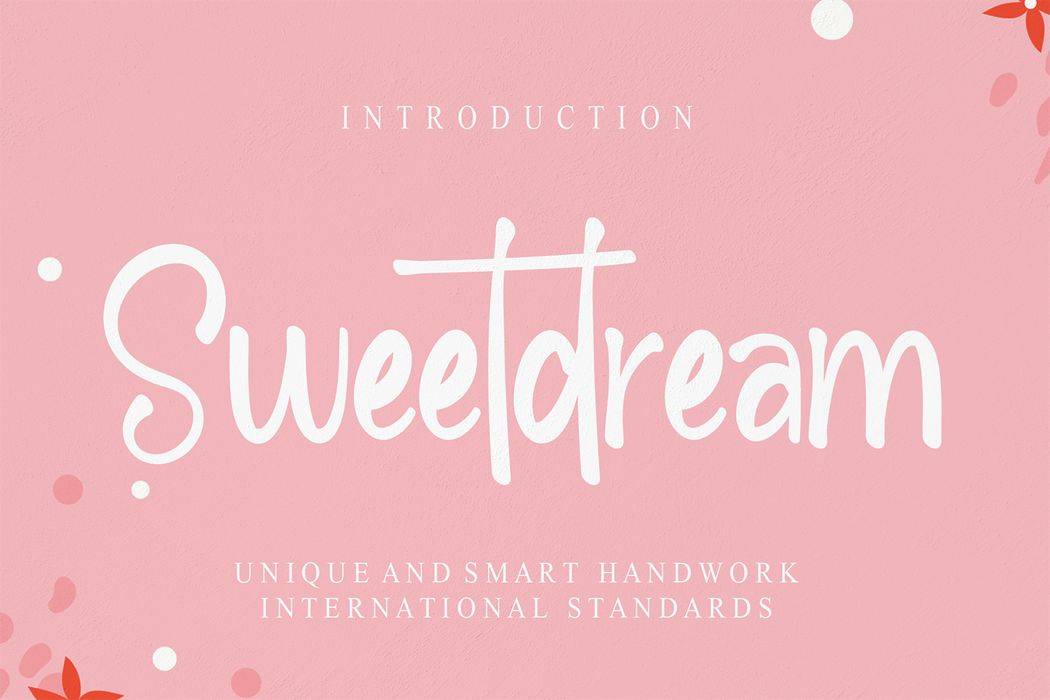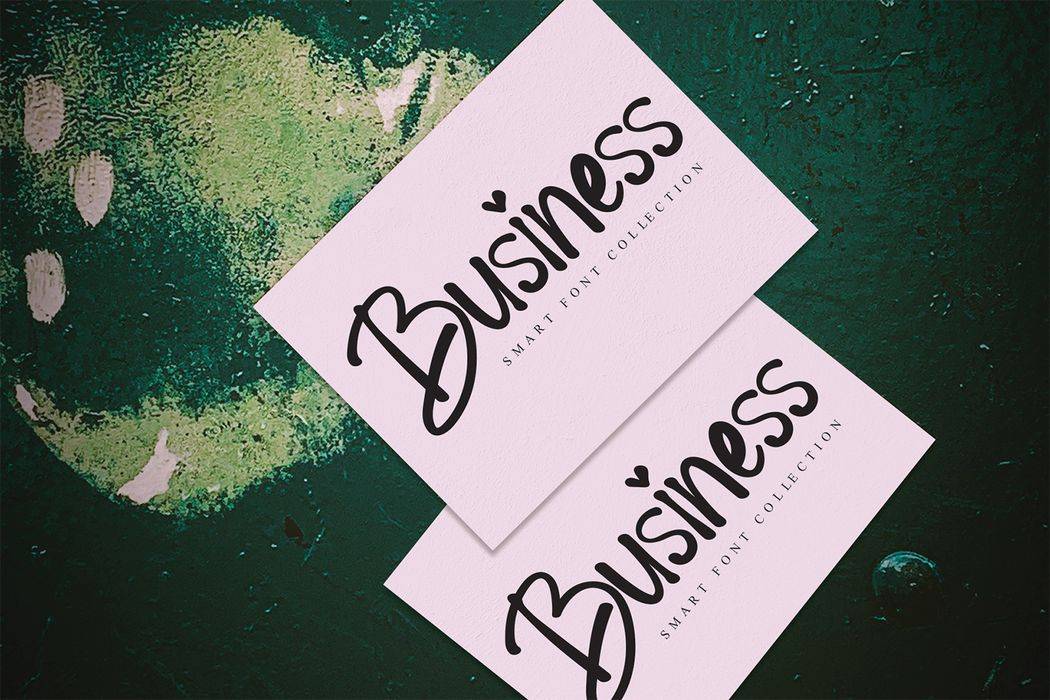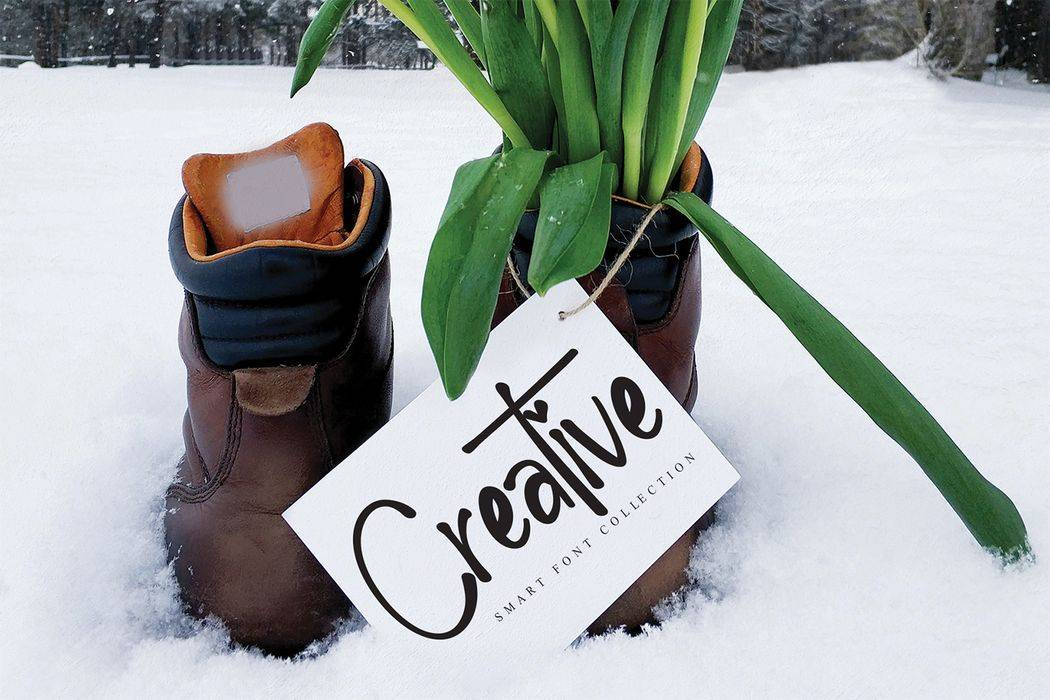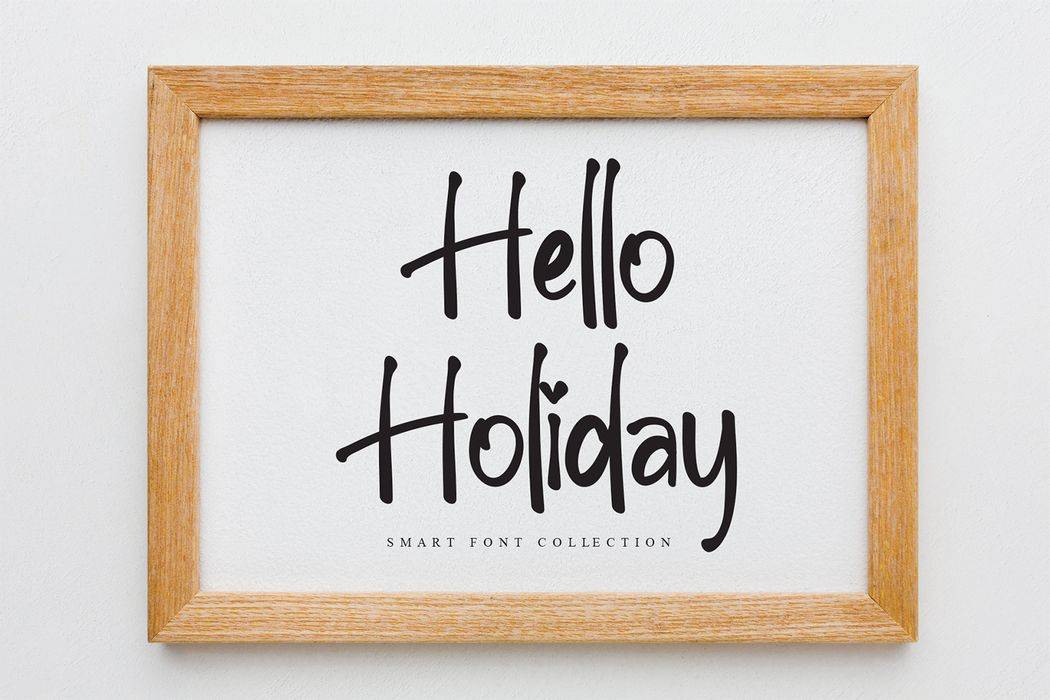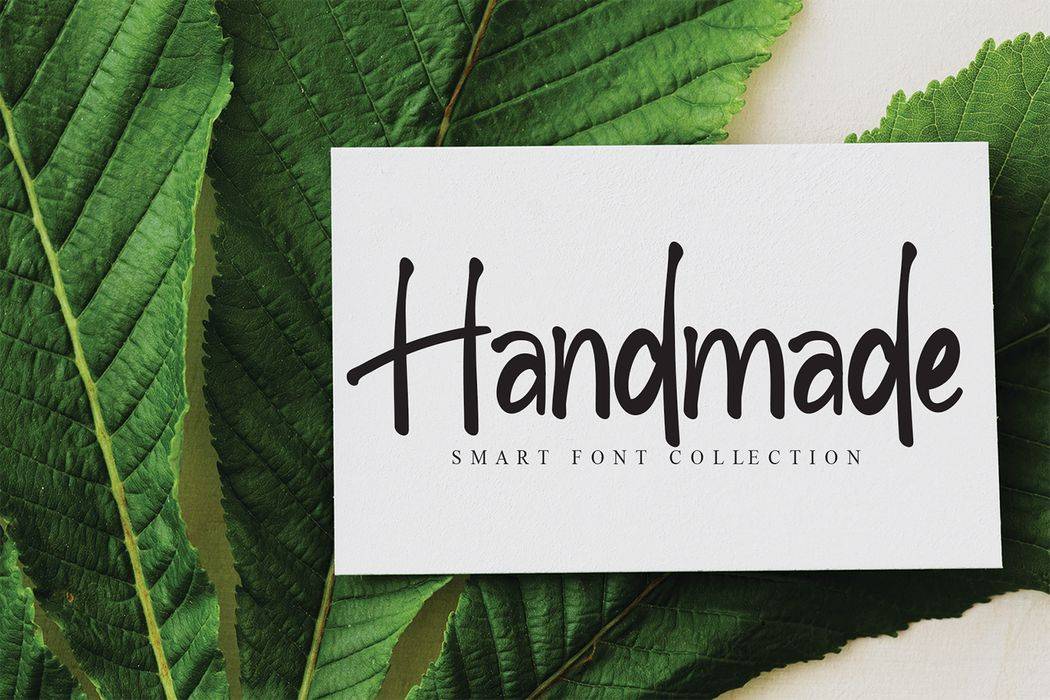
Sweetdream is a playful, handwritten sans serif font with a casual and friendly character. Its thin, irregular strokes and tall, slightly condensed letterforms give it an approachable and lively feel, perfect for creative, informal designs like greeting cards, social media, and youth-oriented branding. This font works best in headlines or short text where a personal, cheerful touch is desired.
Sweetdream Font
About Sweetdream Font
| Font family | Sweetdream Font |